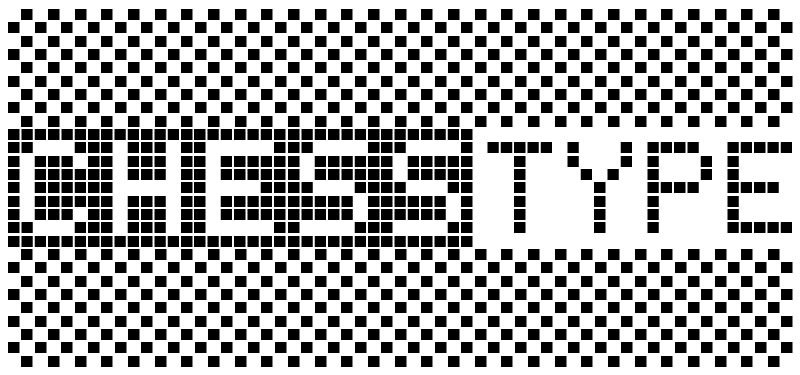
Font name: | ChessType |
Author: | Carl Krull |
Note by Carl Krull | |
ChessType is a black & white squared LCD pixel font. - note: ˜ + $ have been replaced with a filled and unfilled vertical pixelated line of space. ‚ + } have been replaced with dotted vertical lines in opposition to one another. The $,˜,} and ‚ still exist in the font-file, but in strange locations! |